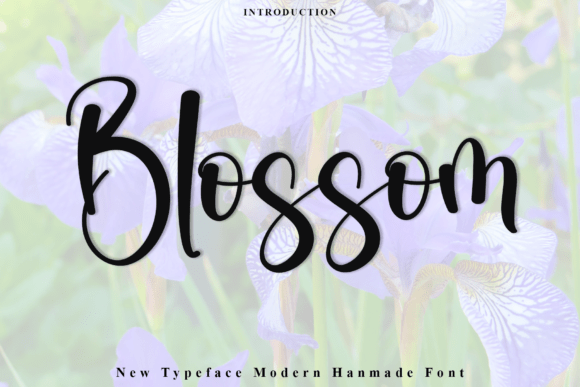
The Perfect Font for a Laid-Back Vibe
Remember the feeling of strolling through a lush garden on a warm summer morning? The soft sunlight filtering through the blooming flowers, the gentle rustle of leaves, and the sweet scent of blossoming trees? It’s moments like these that inspire creativity and spark new ideas. And what better way to capture that carefree essence than with the right font?
Enter the Blossom Font, a charming script font that embodies the freshness and casual elegance of a spring morning. With its fluid strokes and organic lines, this font is perfect for designers looking to add a touch of warmth and personality to their projects. Whether you’re creating branding materials, invitations, or social media graphics, the Blossom Font is sure to bring a smile to your audience’s faces.
Blossom Font Key Features
- Unique Characteristics: The Blossom font features a unique, hand-drawn style with intricate details and subtle flourishes, giving it a distinctive and elegant appearance.
Blossom Font Review
As a designer, I’ve had the pleasure of working with the Blossom Font, and I must say, it’s a unique and charming addition to any design project. ✨ The whimsical, floral-inspired design elements add a touch of elegance and sophistication, making it perfect for projects that require a delicate, feminine touch.
- The intricate details and flourishes add depth and visual interest to the design.
- The font is highly customizable, allowing designers to adjust the size, color, and spacing to suit their needs.
- The overall aesthetic is versatile, making it suitable for a wide range of design projects, from branding to editorial content.
- The font may be too ornate for some designs, potentially overwhelming the content.
- The limited character set may require additional font licenses or workarounds for more complex projects.
- The font may not be suitable for small text sizes, as the intricate details can become difficult to read.
Overall, I think the Blossom Font is a great choice for designers who want to add a touch of whimsy and elegance to their projects. With some careful consideration of its limitations, it can be a valuable addition to any design toolkit. ⚠️
Tips for Getting the Most Out of the Blossom Font
To get the most out of the Blossom font, try the following:
- Use it for creative headings and titles
- Combine it with other fonts for a unique look
- Experiment with different font sizes and colors
The Blossom font is perfect for:
- Children’s books and educational materials